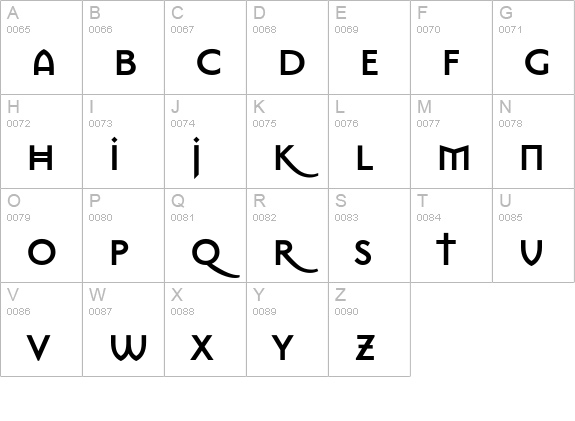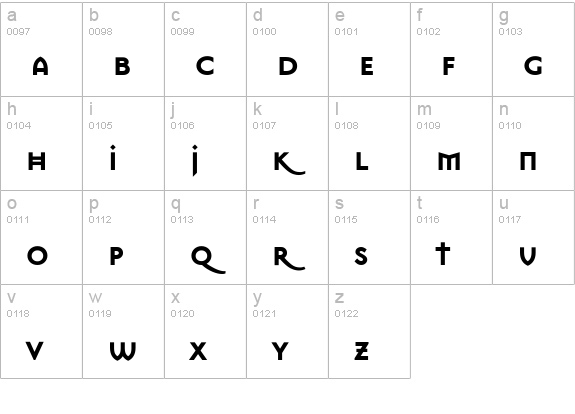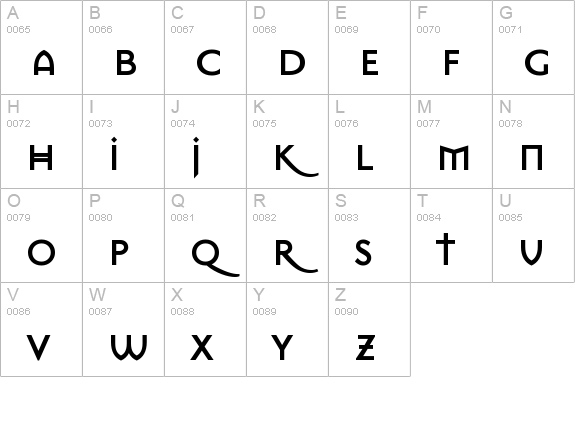
MasonSans-Bold is a strong, high-contrast variant in the MasonSans typeface family \xE2\x80\x94 well suited to headlines, attention-grabbing titles, and strong calls-to-action.
Introducing MasonSans-Bold, a strikingly bold and commanding font that exudes strength and confidence. With its clean lines and robust curves, this typeface is perfect for making a bold statement in any design project. Whether you're creating eye-catching headlines, powerful logos, or impactful posters, MasonSans-Bold is sure to captivate your audience's attention. Not only does MasonSans-Bold possess a strong visual presence, but it also offers unparalleled versatility. Its carefully crafted design allows for seamless legibility across various mediums, ensuring that your message is delivered with clarity and impact. What sets MasonSans-Bold apart is its accessibility. We believe that great design should be available to everyone, which is why we are thrilled to offer this font for free. That's right, you can freely download MasonSans-Bold at FontsMarket.com, making it accessible to designers of all levels and budgets. So, whether you're a seasoned professional looking to elevate your designs or a budding artist exploring the world of typography, MasonSans-Bold is here to empower your creativity. Download this remarkable font today and experience the power of boldness in your designs.